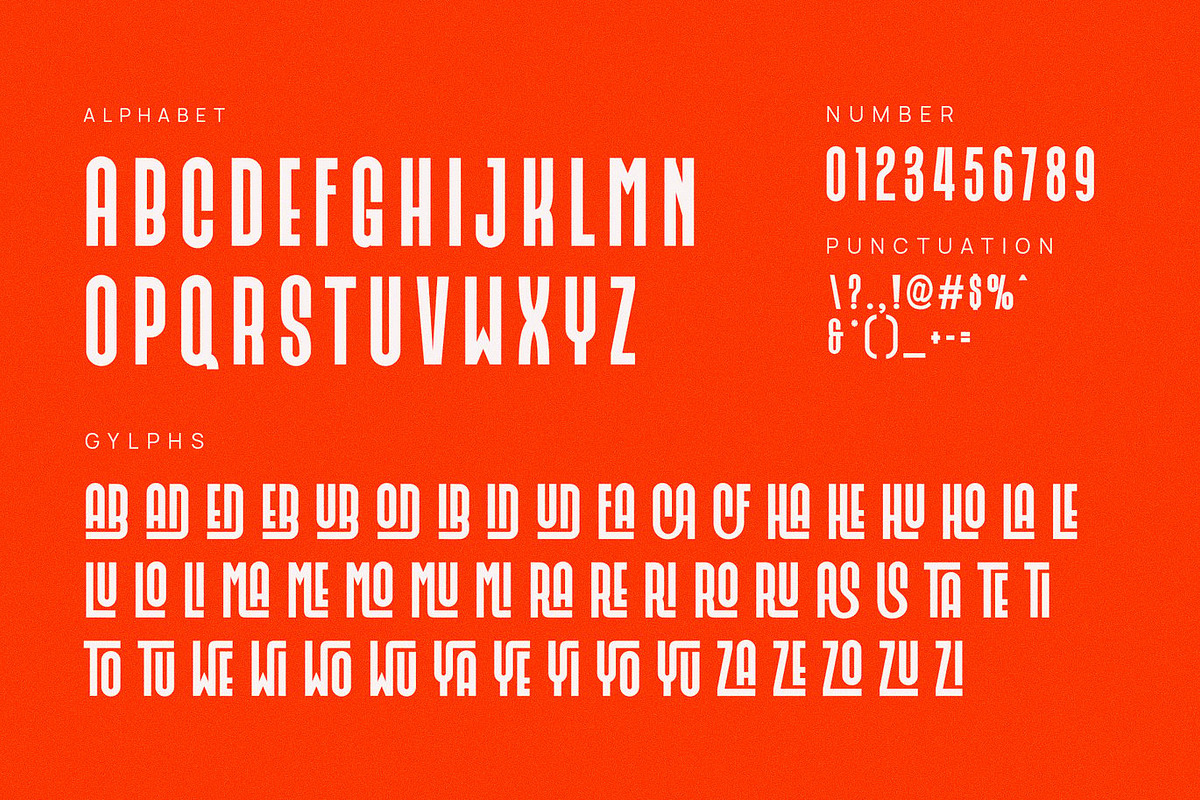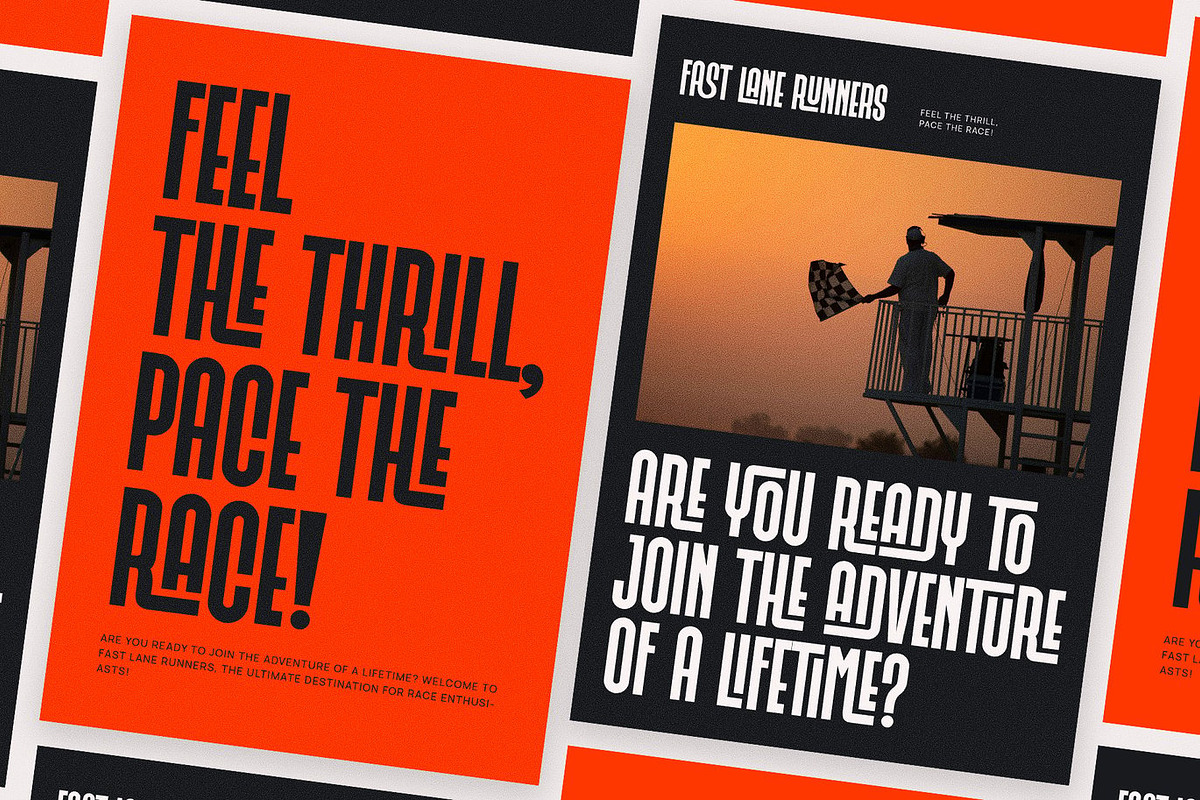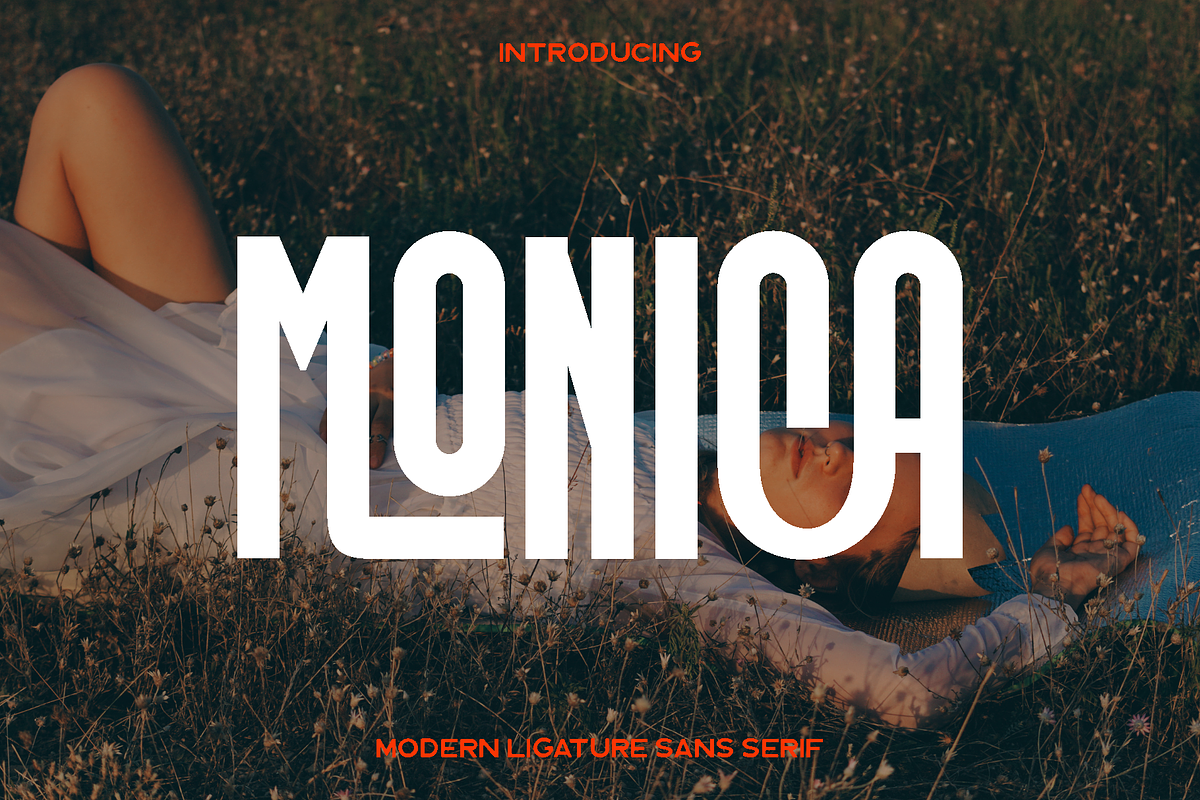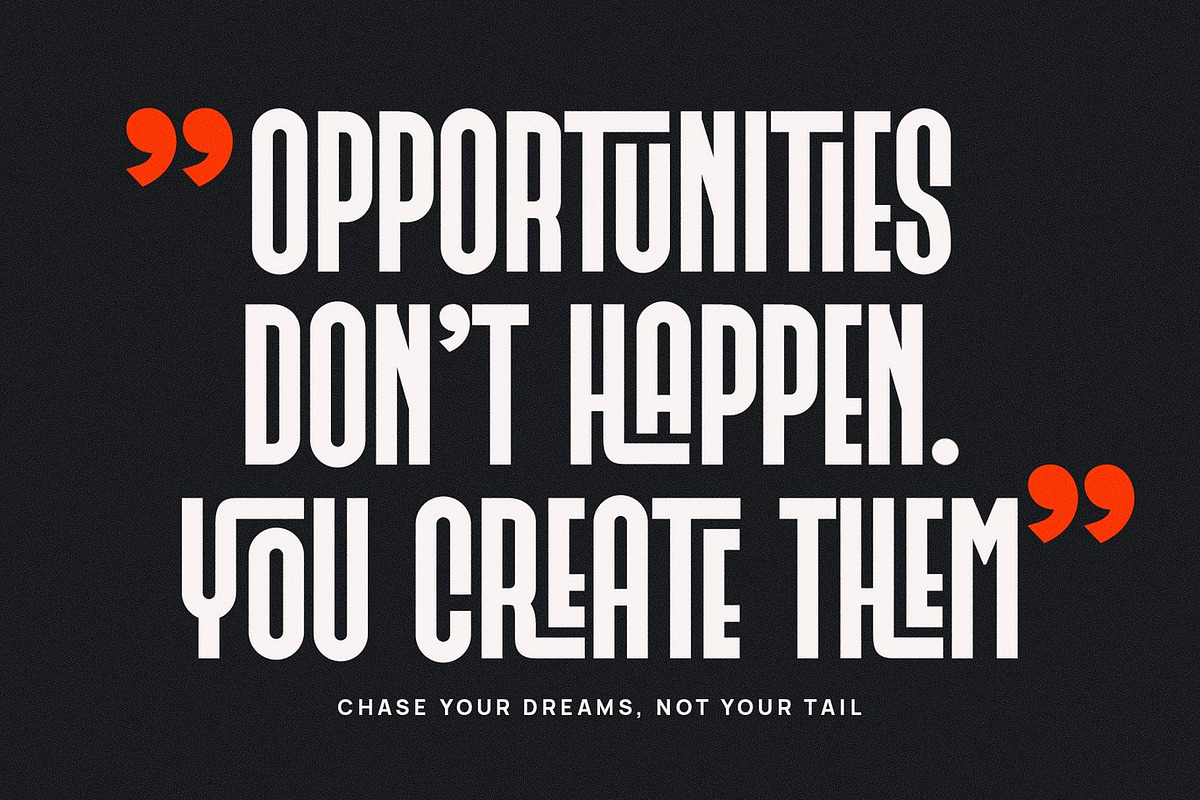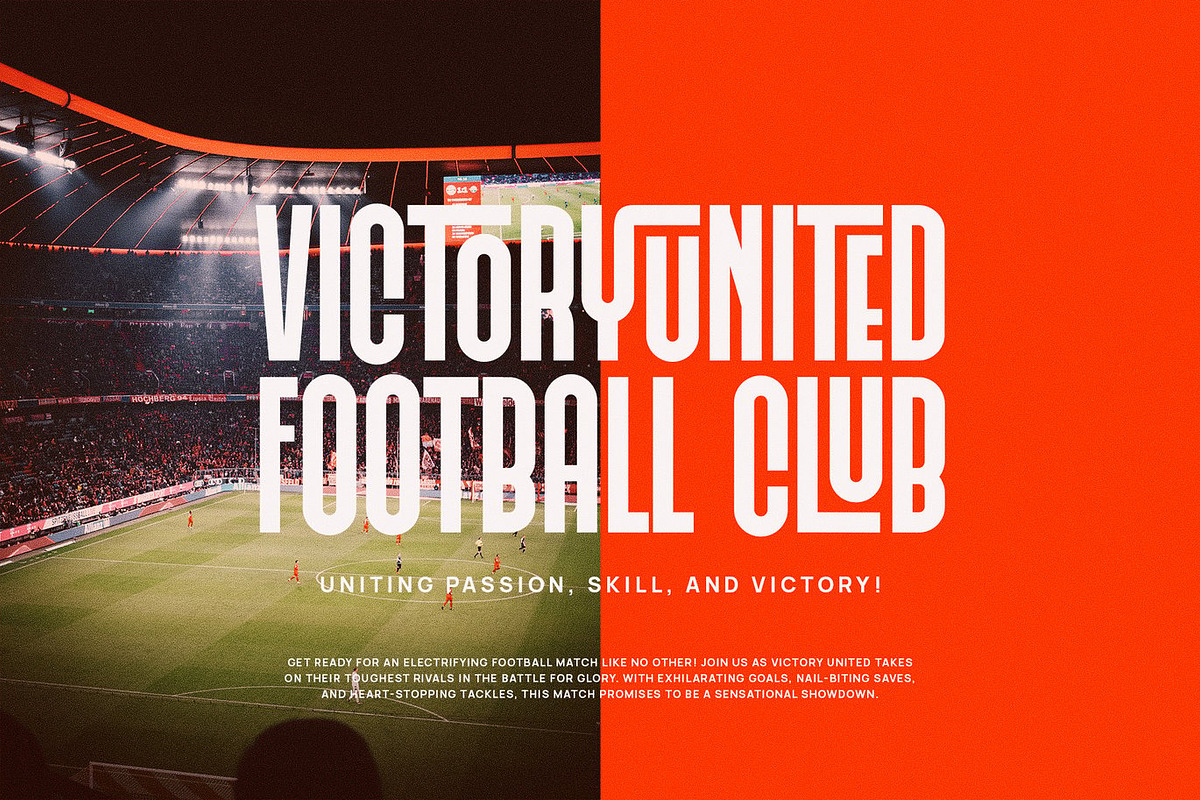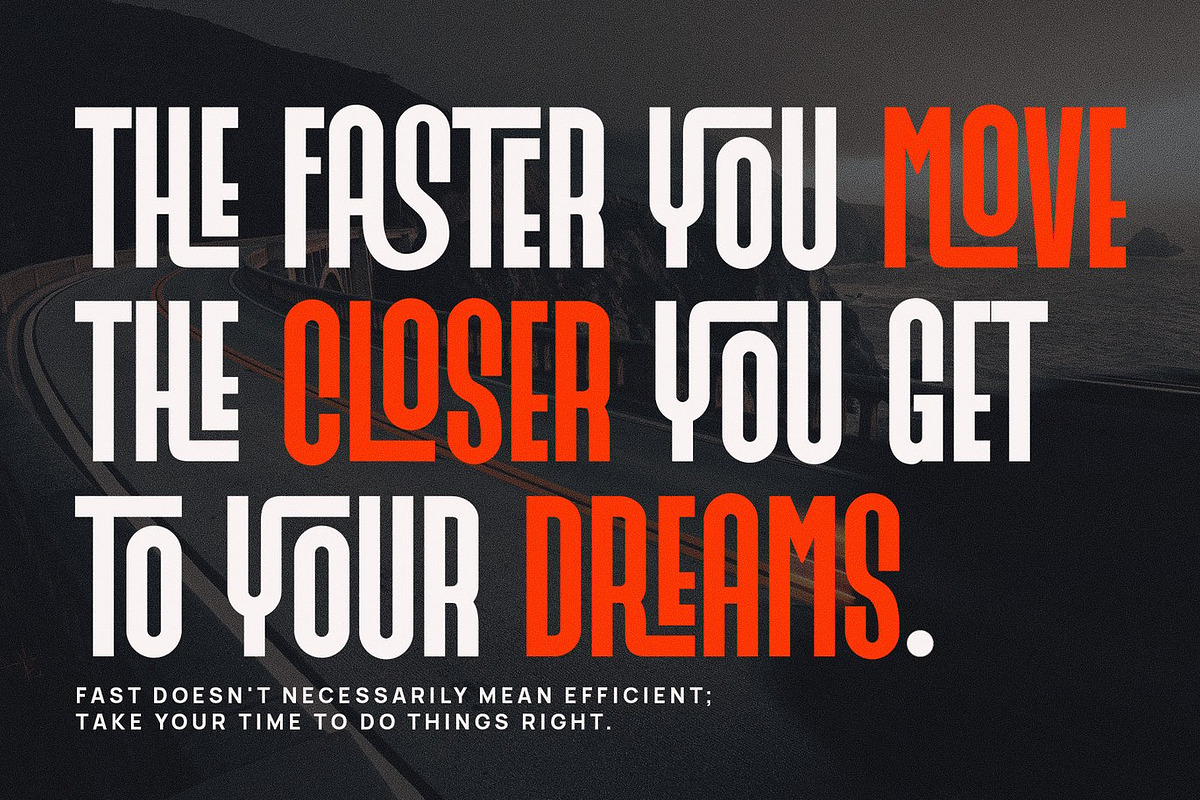
Monica - Modern Sans Serif
Monica is a sleek, contemporary sans serif font designed to combine modern minimalism with subtle sophistication. Inspired by clean geometric forms and refined craftsmanship, Monica delivers a polished and professional aesthetic that elevates any design. Its smooth ligatures and balanced proportions create a natural flow, making text feel elegant, cohesive, and highly readable.
This versatile typeface shines in a wide range of applications, from corporate branding and editorial layouts to digital interfaces and innovative advertising. Monica is perfect for creating logos, magazine headlines, product packaging, esports branding, social media graphics, and promotional materials where clarity and style are essential. Its modern and structured appearance ensures every project communicates confidence, professionalism, and contemporary appeal.
Monica is ideal for agencies, creatives, and businesses looking to establish a strong and forward-thinking identity. Whether used in print or digital projects, this font transforms typography into a refined visual statement. With its dynamic ligature options and polished letterforms, Monica is both functional and stylish, making it a reliable choice for designers who want to combine elegance with modernity.
Monica Modern Ligature Sans Serif Font Features:
• Clean, geometric sans serif characters
• Smooth ligatures for natural text flow
• Numerals, punctuation, and accented characters included
• Uppercase and lowercase letters
Monica brings sophistication and clarity to every word, helping your projects stand out with contemporary elegance and professional flair.